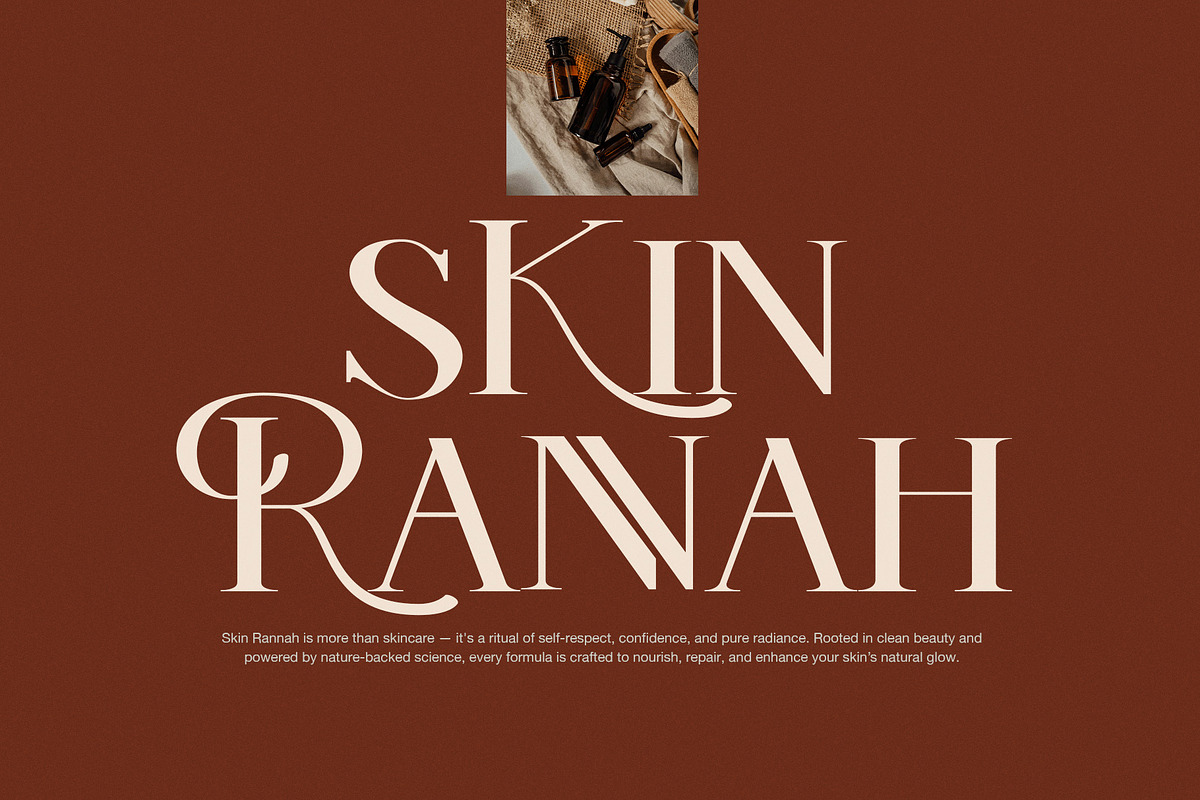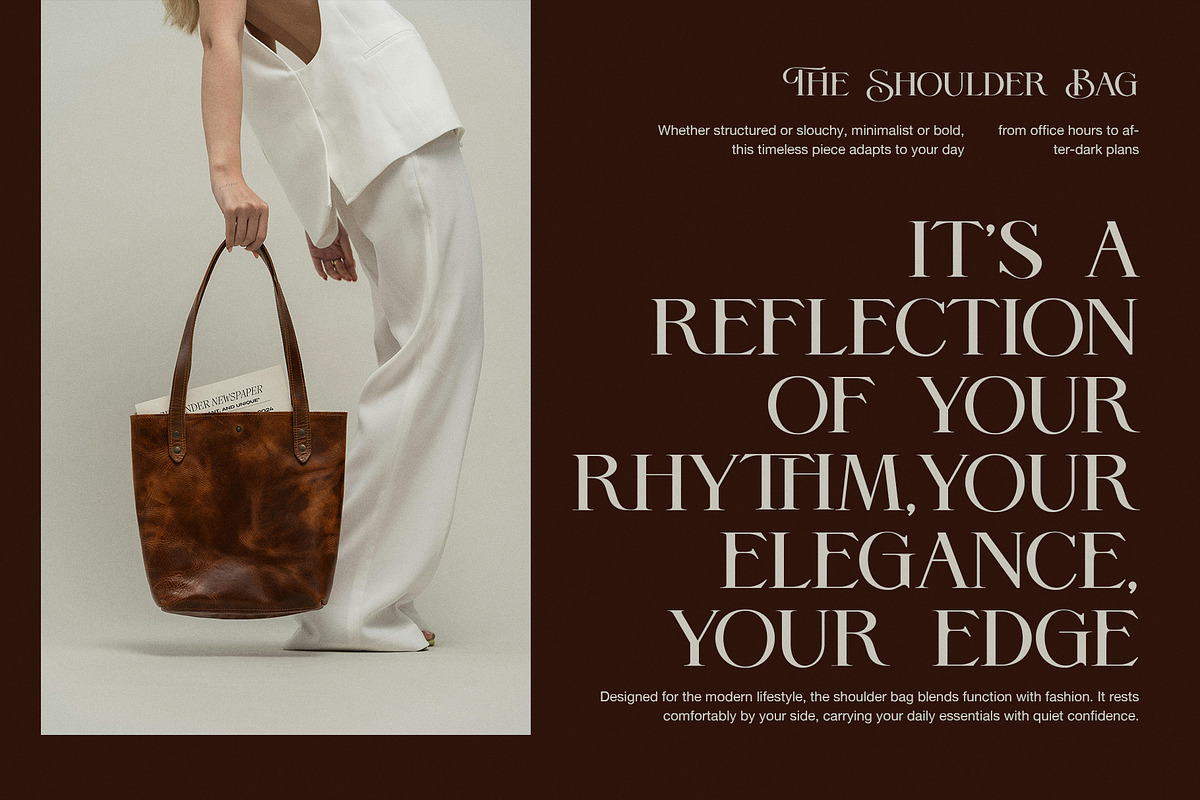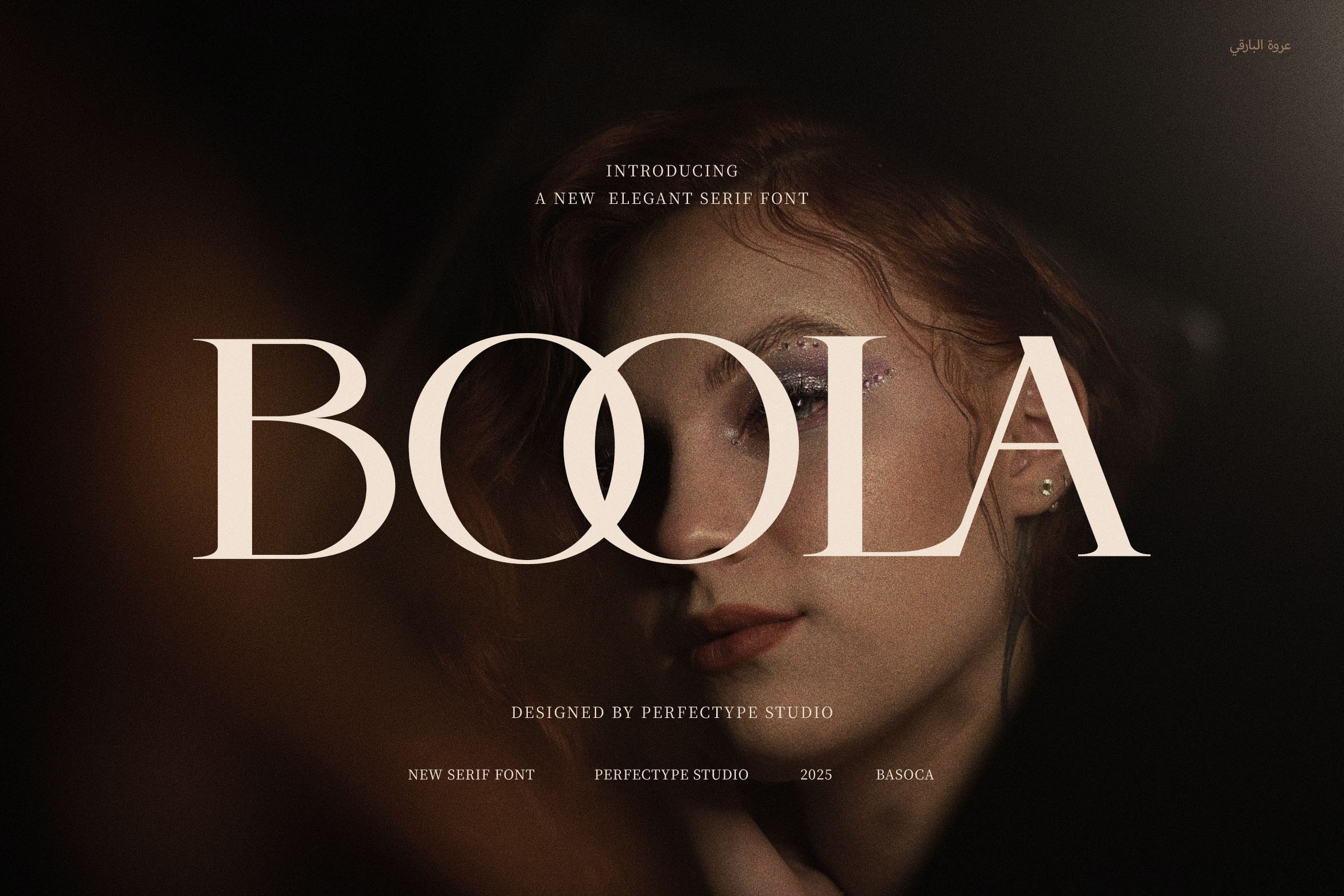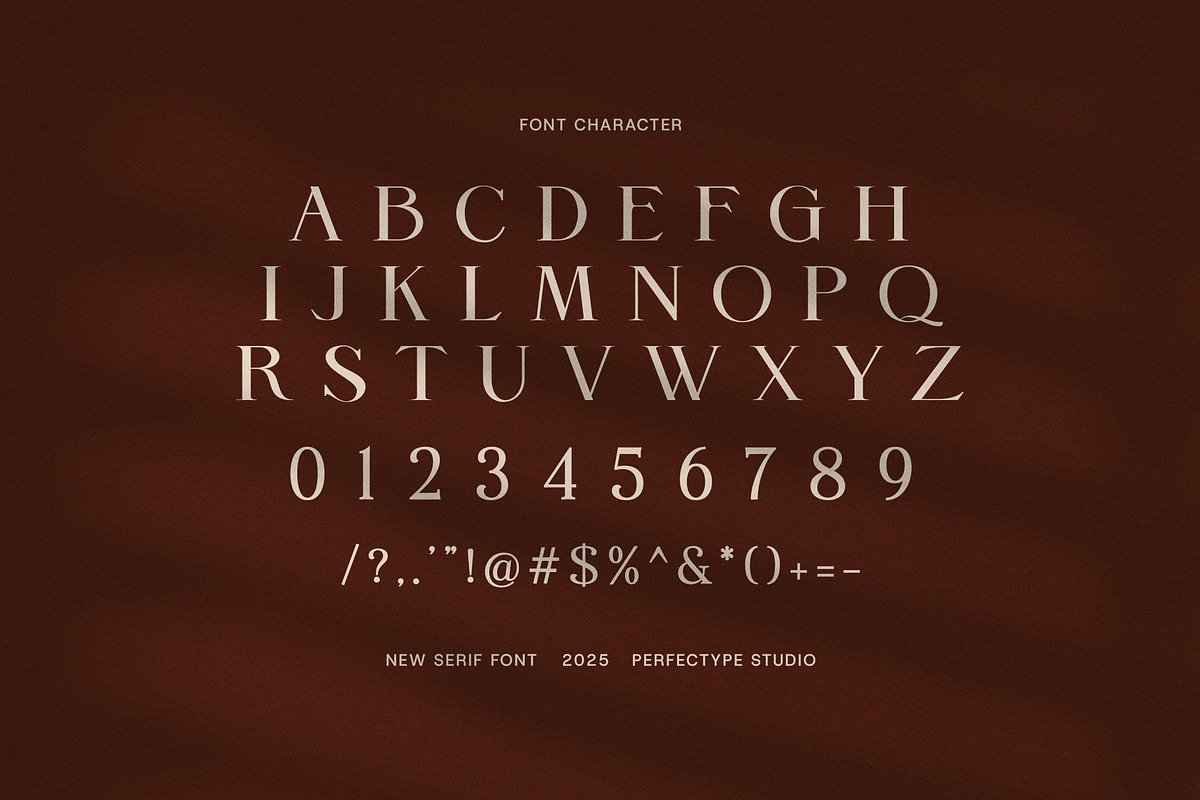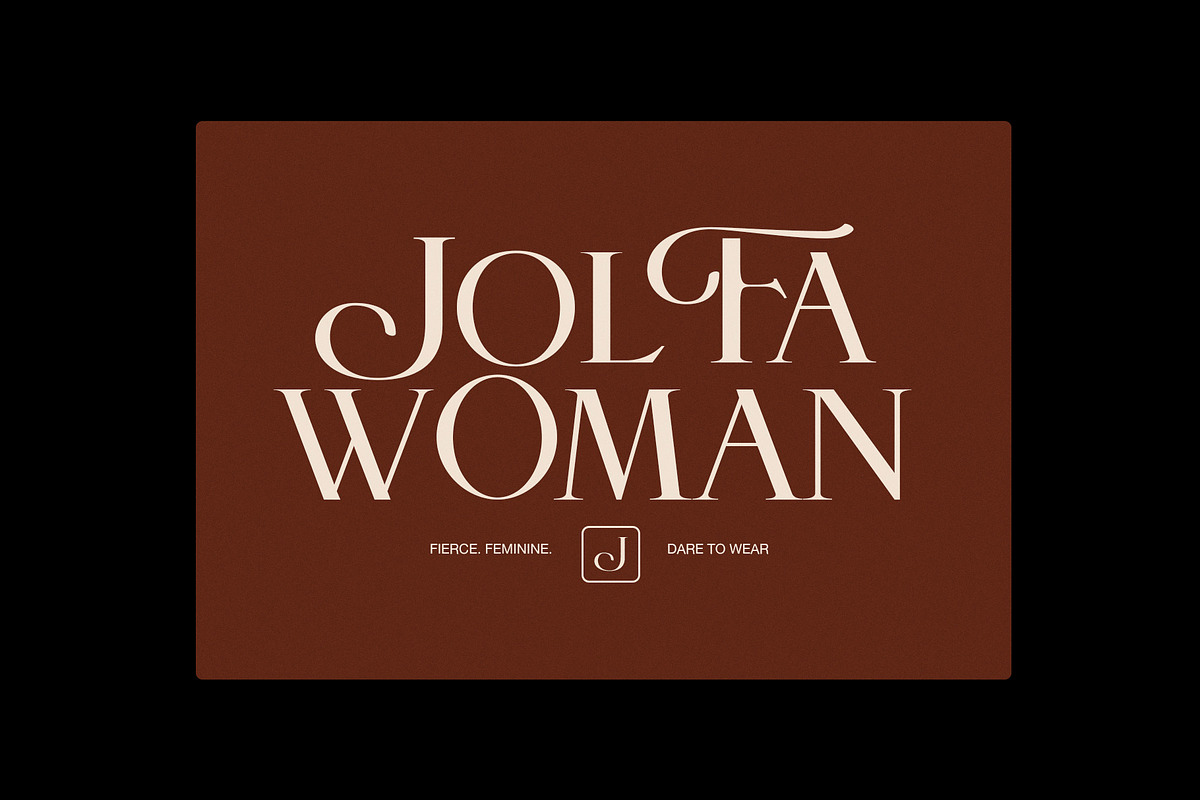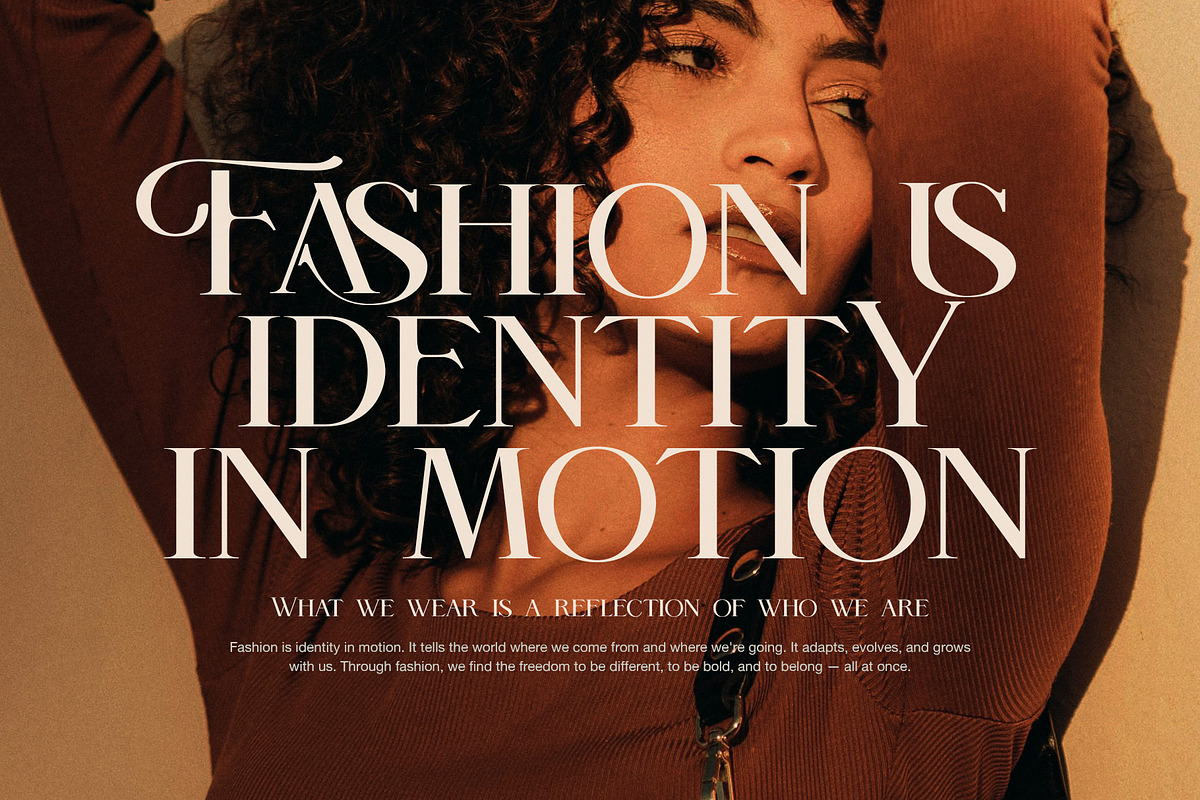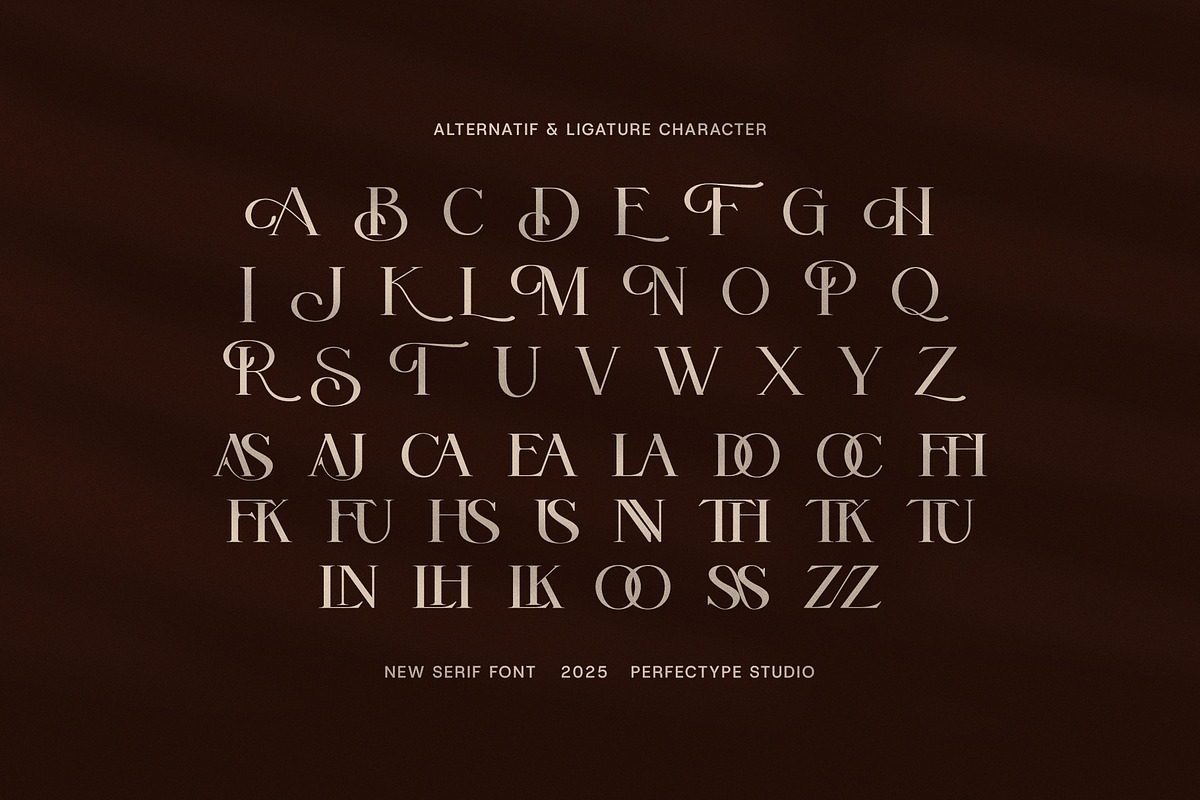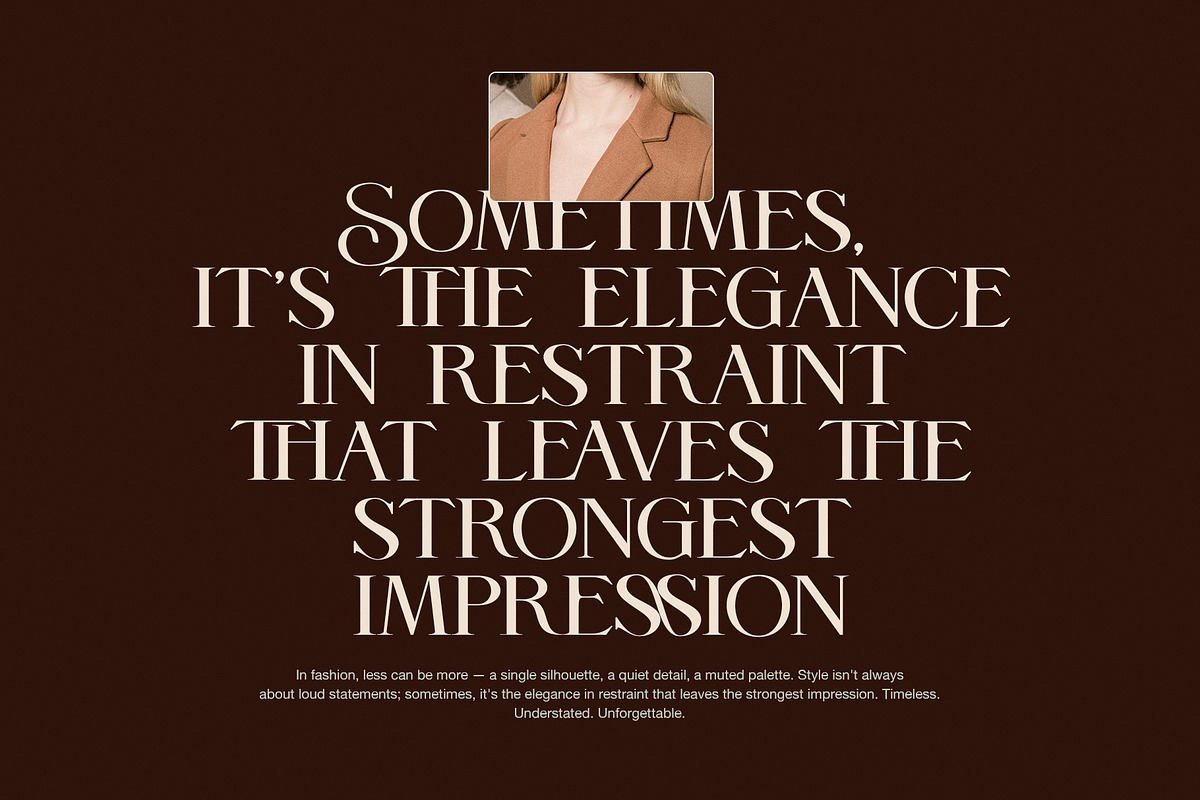
Boola Elegant Serif Font
Boola Elegant Serif Font – Modern Class with a Timeless Voice
Boola Elegant Serif Font is a modern serif typeface that blends contemporary charm with classic elegance. Designed with proportional shapes and refined curves, Boola is perfect for branding that needs to stand out while maintaining a clean and professional look. Its functional ligatures bring smooth visual flow and create an upscale design experience across all platforms.
Boola is ideal for designers looking for a high-end serif that works across print and digital projects. Whether you're creating logos for luxury brands, packaging for premium products, or layouts for fashion magazines and websites, this font adds a layer of sophistication and versatility. With excellent readability and balanced proportions, Boola adapts beautifully to everything from boutique branding to large-scale advertising campaigns.
The typeface comes with elegant ligatures and clean spacing, making it perfect for upscale, stylish visuals. Its well-structured design ensures it looks beautiful both in headlines and body text. You can use Boola to make your message both bold and timeless.
Use Boola For:
Luxury logos and brand identities
Editorial titles and magazine layouts
Fashion websites and hero banners
Elegant packaging and product design
Boutique advertisements and signage
Food branding and stylish menus
Corporate branding and presentations
With Boola, you get more than a font—you get a powerful, polished branding tool.